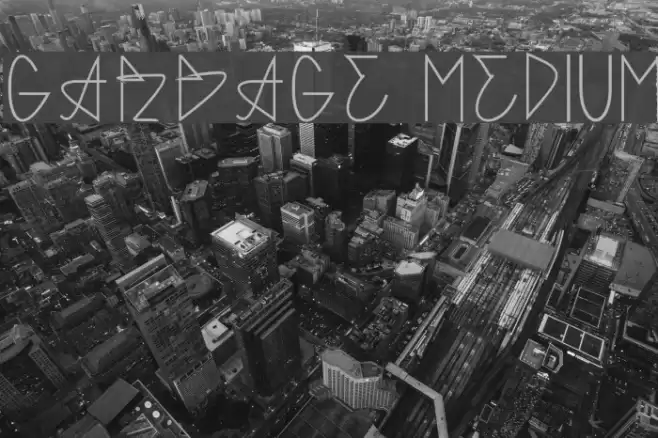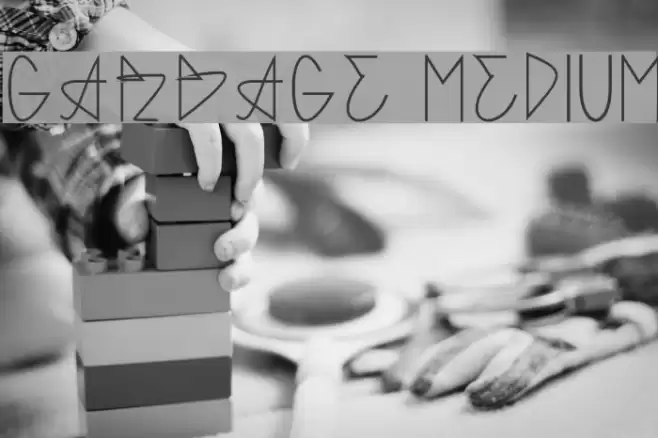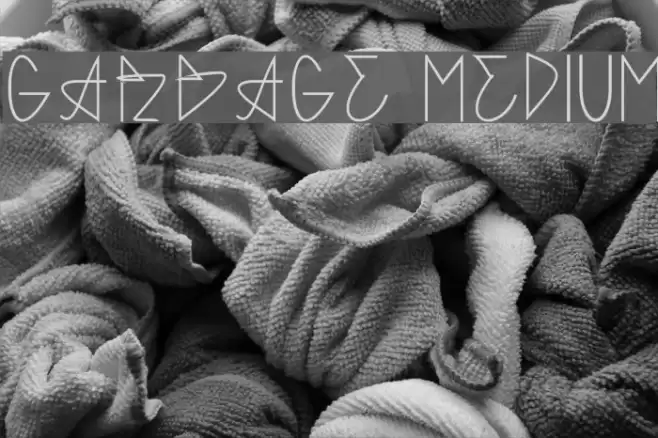
GARBAGE MEDIUM Font
GARBAGE MEDIUM Description
This font features a unique and artistic design with a modern twist. The characters are composed of thin, angular lines that create a geometric and abstract appearance. Each letter has a distinct, stylized form, with some incorporating sharp angles and others featuring curved elements. The overall look is both futuristic and slightly retro, making it stand out in any design. The font maintains a consistent line weight throughout, giving it a clean and cohesive look. It is ideal for projects that require a bold and creative statement, such as branding, posters, or digital artwork.
A geometric and artistic font with thin, angular lines and a modern twist from Uncategorized fonts.
- Proposed Projects: Ideal for branding, posters, digital artwork, and creative projects requiring a bold statement.